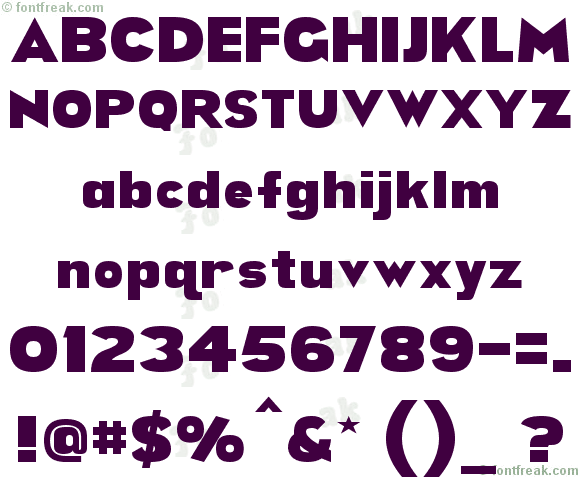
Ravenwood
Ravenwood by Neale Davidson is a striking display font that seamlessly blends modern aesthetics with a touch of classic elegance. As a decorative typeface, Ravenwood features bold, clean lines and a unique geometric structure that commands attention. Its stroke weight is consistent, providing a solid presence on any medium, while the slight contrast in its letterforms adds depth and visual interest. The spacing between characters is thoughtfully designed, ensuring legibility while enhancing its decorative appeal.
This font is particularly well-suited for a variety of creative projects. It shines in wedding invitations, where its elegant design can convey romance and sophistication. Movie posters benefit from Ravenwood's bold character, making titles pop and capturing the viewer's attention. Additionally, restaurant menus can leverage this font to create an inviting atmosphere, showcasing dishes with flair. Ravenwood also works well for branding materials, giving small business owners a unique identity that stands out in a crowded marketplace. Content creators will find it perfect for social media graphics and promotional materials, ensuring their messages are visually compelling.
The target audience for Ravenwood includes graphic designers, small business owners, and content creators who seek a font that balances style and functionality. Its versatility makes it an ideal choice for those looking to elevate their design projects.
What sets Ravenwood apart is its ability to blend boldness with elegance, making it a versatile choice for various applications. The combination of its contemporary design and classic influences ensures that it resonates with a wide audience. For those seeking to enhance their creative endeavors, the Ravenwood font free download offers an excellent opportunity to incorporate this distinctive typeface into their work.